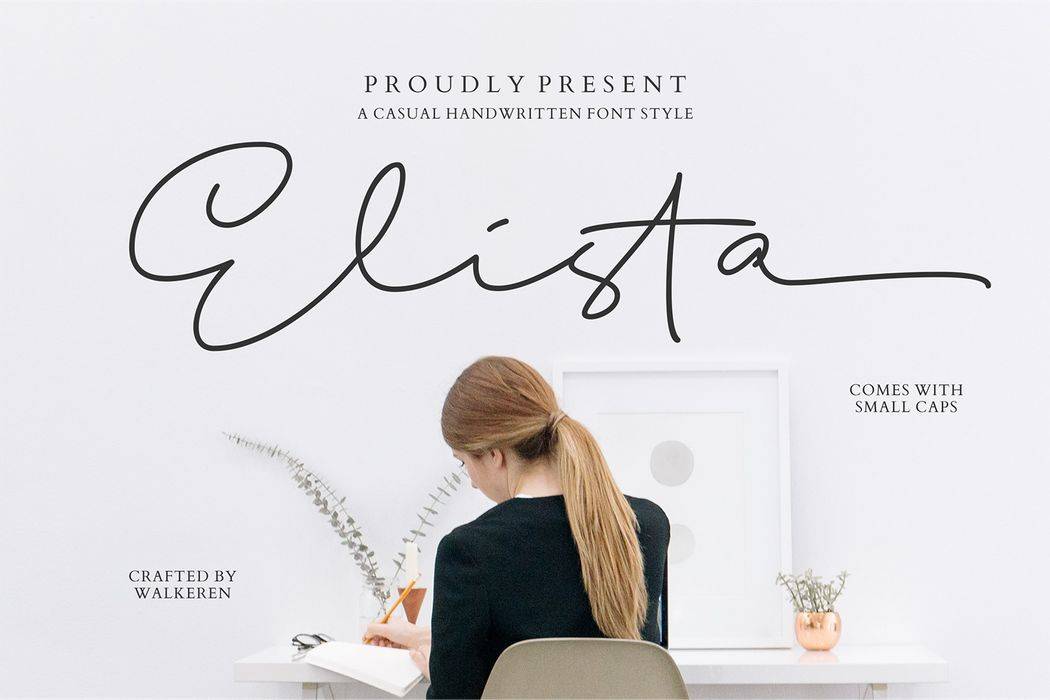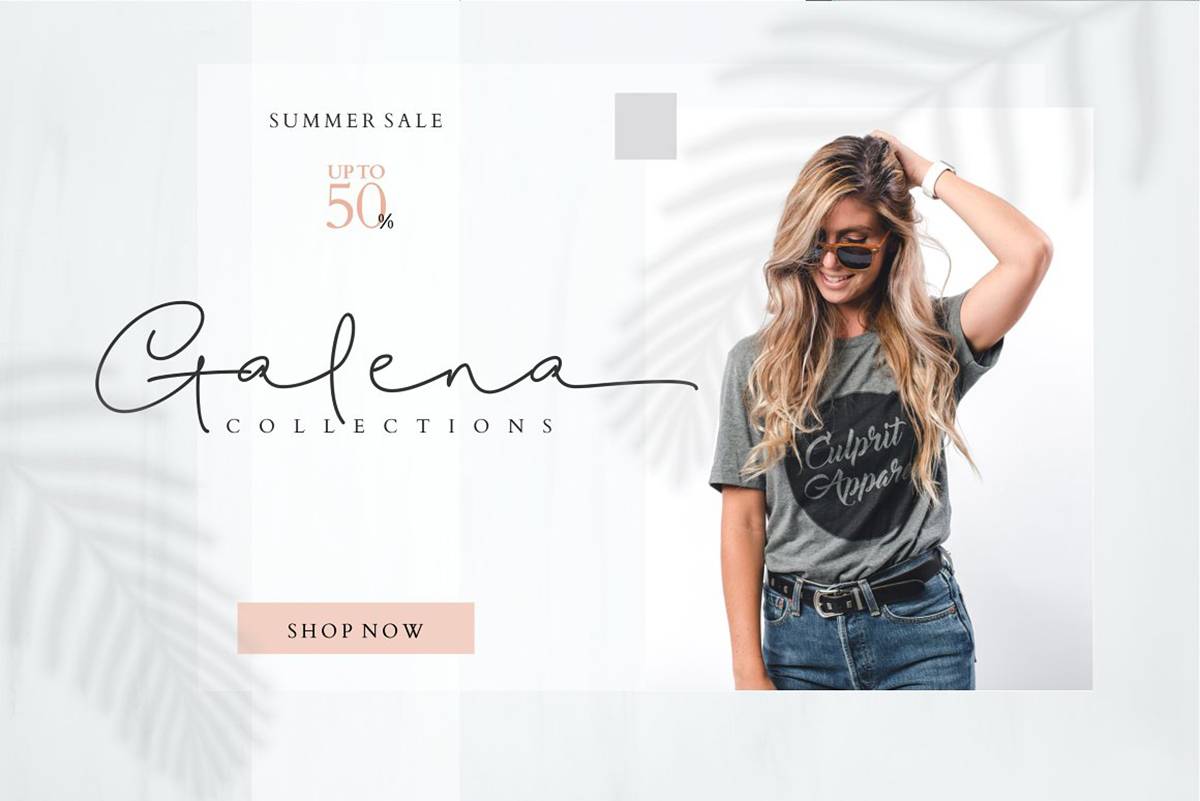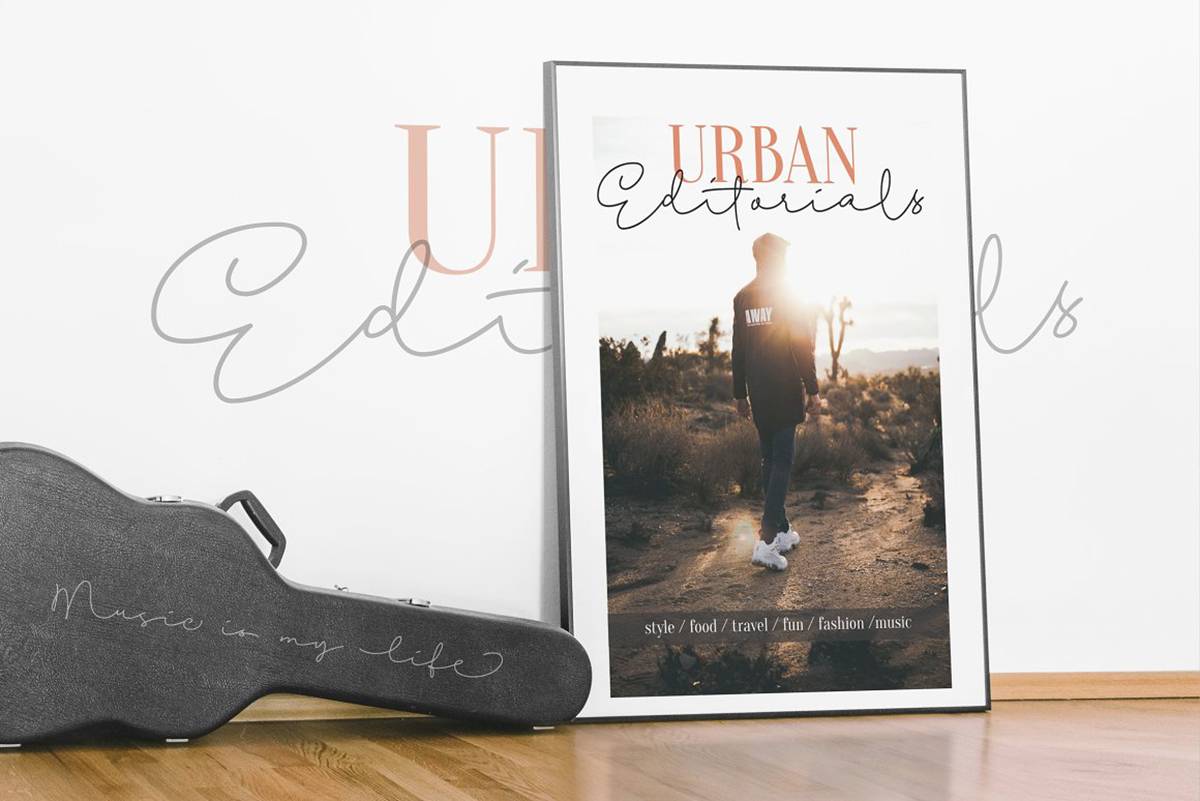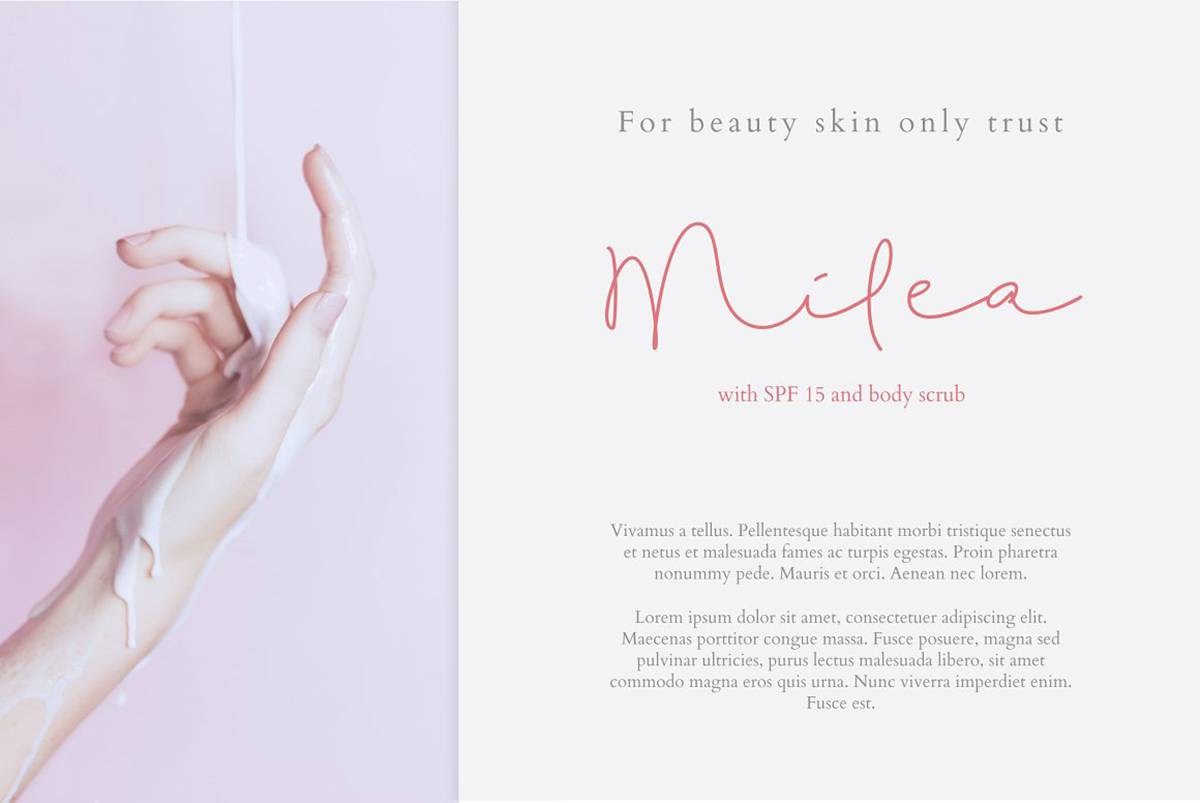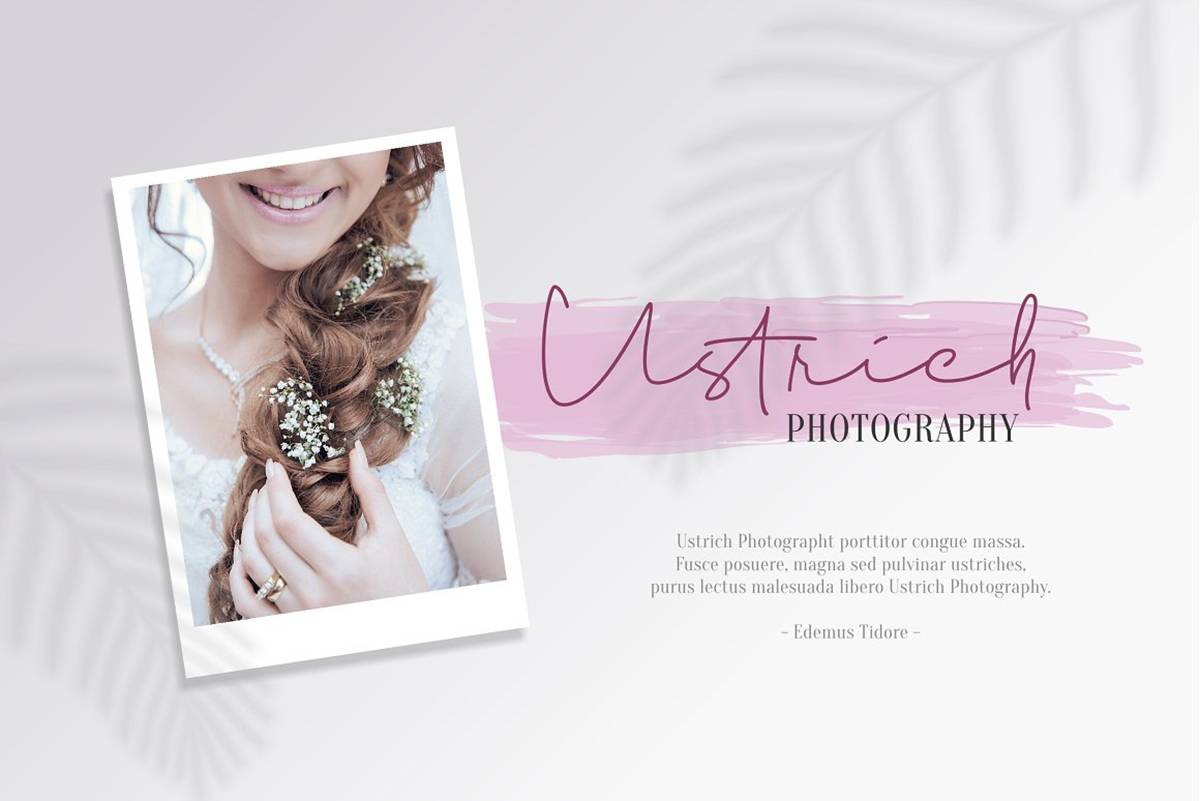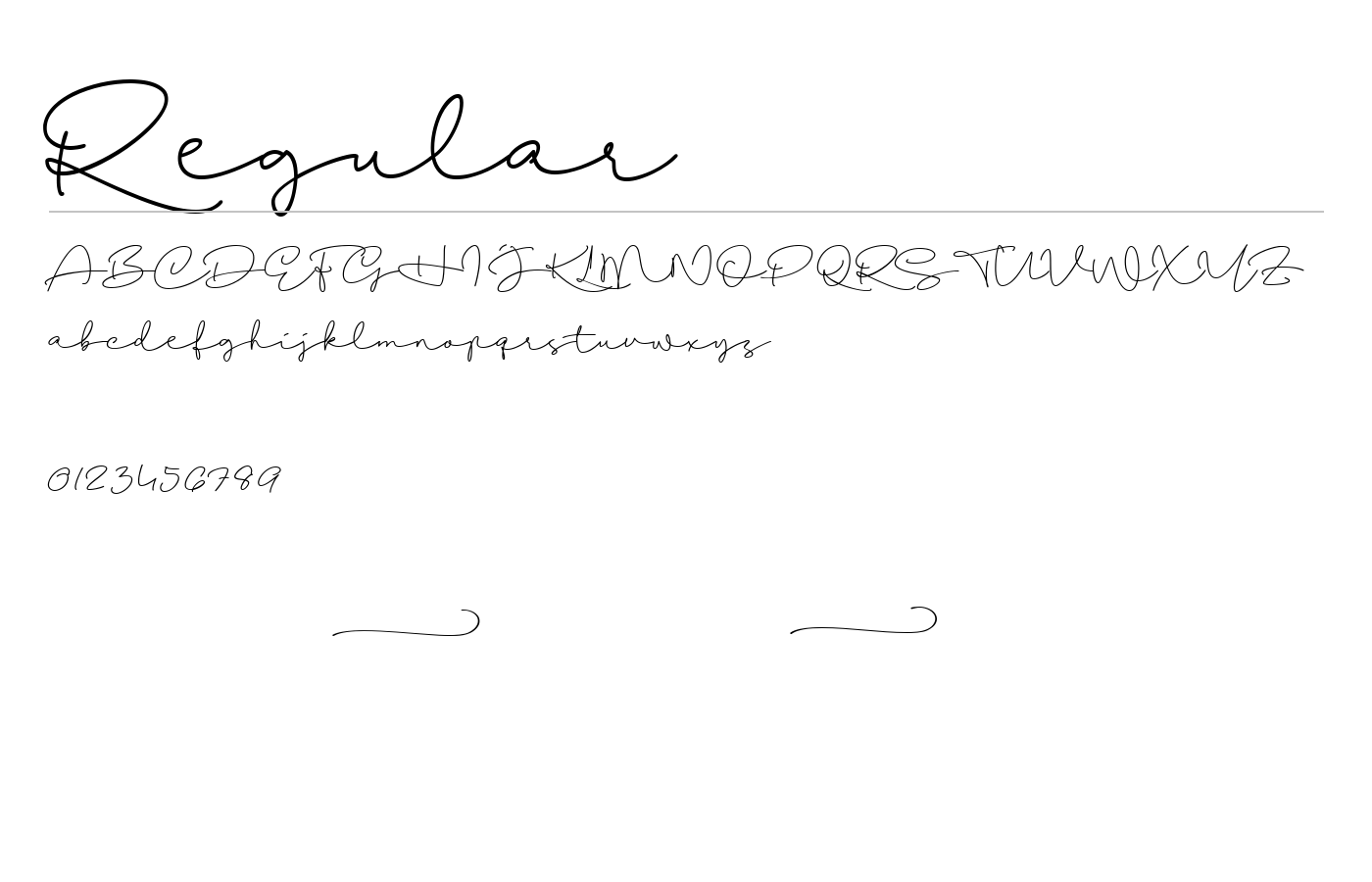
Elista Font is a delicate and elegant script typeface characterized by its light, flowing strokes that mimic natural handwriting with a refined and airy feel. Its slender lines and graceful curves make it perfect for adding a personal, sophisticated touch to invitations, branding, and artistic projects where a gentle, stylish expression is desired. This font shines in designs that benefit from a subtle yet expressive handwritten aesthetic.
Elista Font
About Elista Font
| Font family | Elista Font |
| Release date | 2019-06-25 |
| Designer | Awaluddin Syarif |